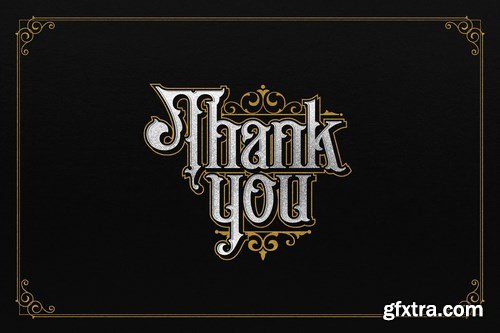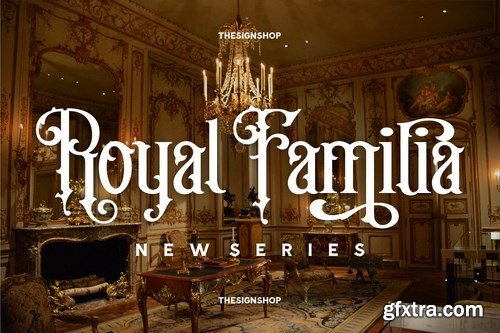
The Sign Shop font is debut font created by Peter Bielous and Neuron. It has vintage looking and is inspired by Victorian era. It contains extra bonus font called Old Taverna which works perfectly together. Ideal for creating vintage look logos, old looking signs, etc. The whole package contains the vector bonus ornaments specially crafted for this font. Have a fun and create something unique.